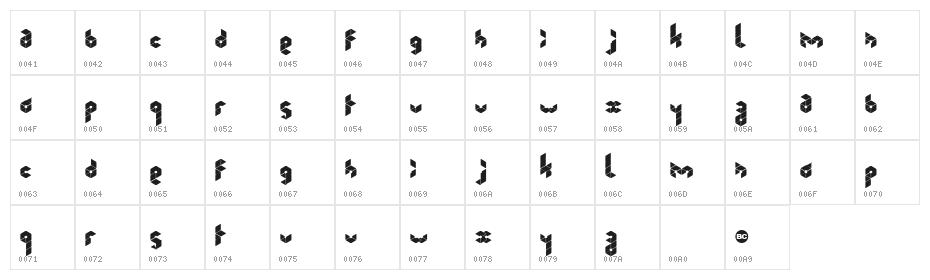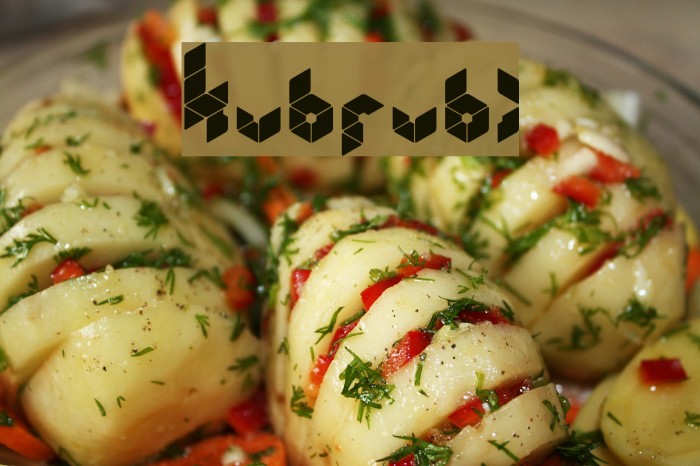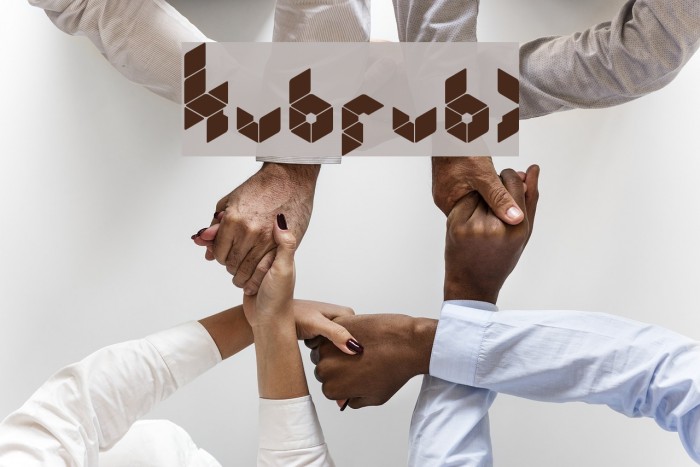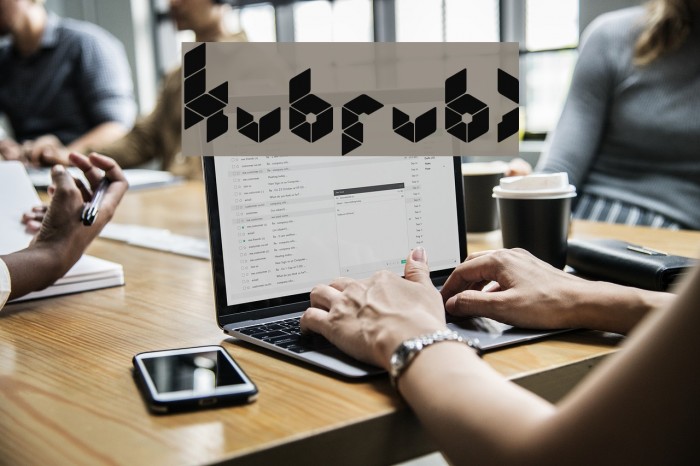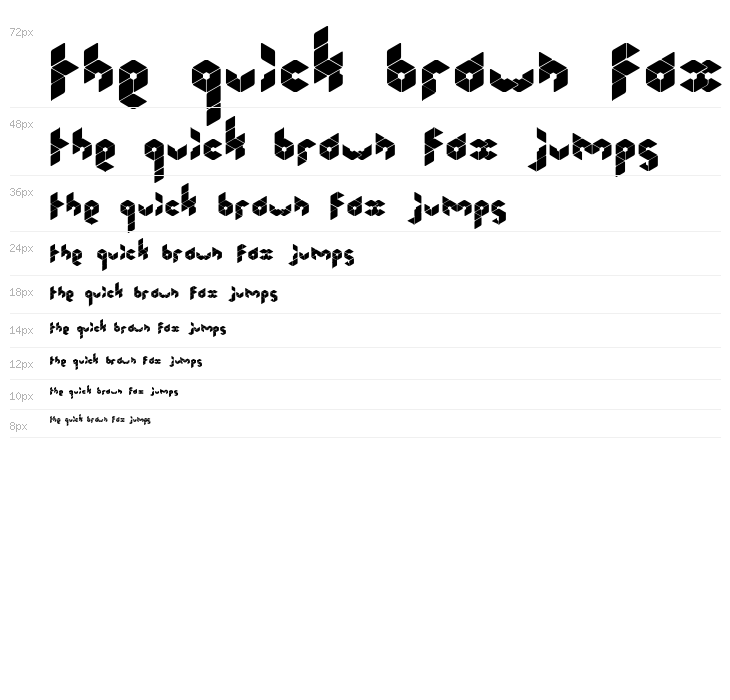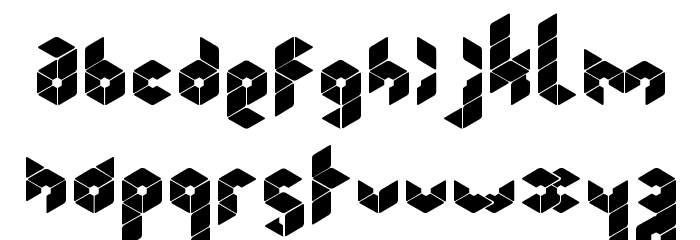
Kubrubi Font
Kubrubi Description
This font features a bold, geometric design with a distinct three-dimensional effect. Each character is constructed from a series of angular shapes that create a cube-like appearance, giving the font a futuristic and modern aesthetic. The use of solid black forms and sharp edges enhances its striking visual impact. The font maintains a consistent structure across all characters, ensuring readability while offering a unique style. Its boldness and geometric nature make it ideal for attention-grabbing designs.
| Proposed Projects | Ideal for futuristic branding, tech-related projects, video game titles, and modern poster designs. |